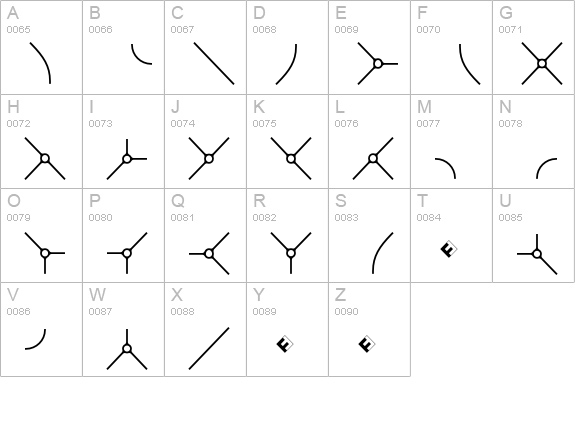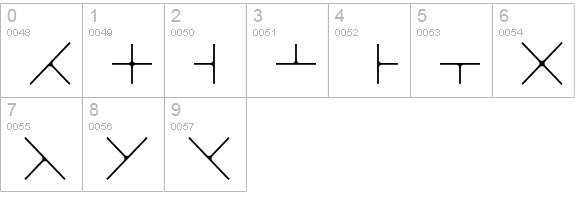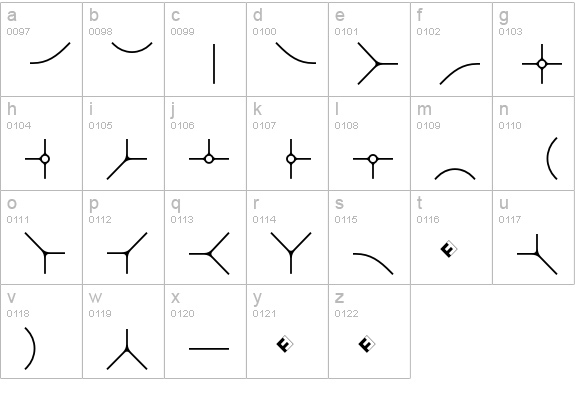
Routes B One is a modern and stylish font that exudes sophistication and elegance. With its sleek lines and contemporary design, this font is perfect for a wide range of design projects, from branding to editorial layouts. The versatility of Routes B One makes it a valuable addition to any designer's toolkit. The best part? Routes B One is available for free download at FontsMarket.com, giving you access to this beautiful font without any cost. Whether you're working on a professional project or a personal endeavor, Routes B One is sure to elevate your design and impress your audience. Download it today and start creating stunning visuals with this exceptional font.